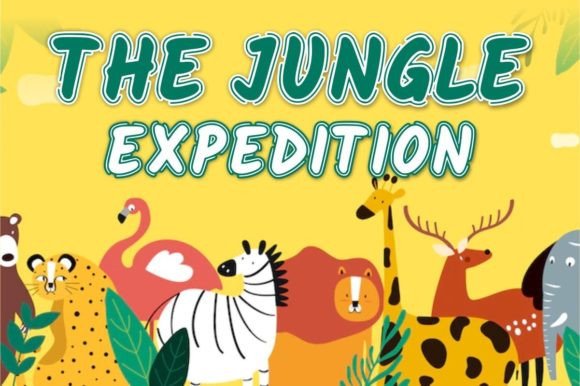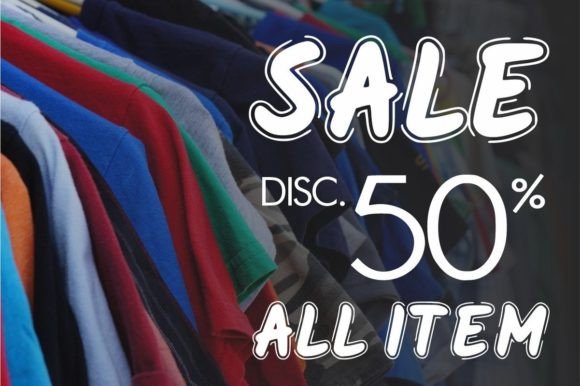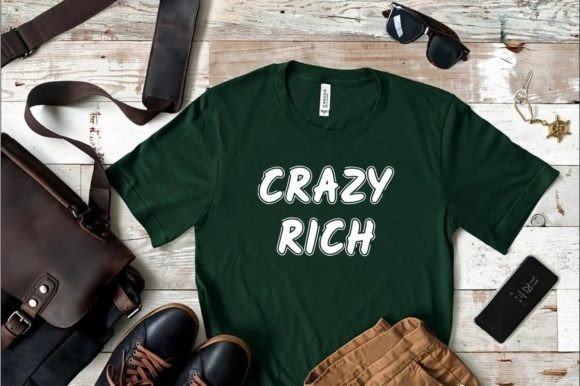
Introducing Funpora Font: The Perfect Choice for Fun and Creative Designs
Are you looking for a font that can add a touch of playfulness and friendliness to your designs? Look no further than Funpora Font! This delightful display font is designed to bring a sense of casual ease and readability to your projects, making it an ideal choice for children’s themed designs, school projects, and so much more.
What Makes Funpora Font So Special?
Funpora Font is a unique and charming typeface that is sure to capture the attention of your audience. Its fun and friendly character makes it perfect for designs that require a lighthearted and approachable feel. Whether you’re working on a project for kids or creating a fun and playful design for a brand, Funpora Font is the perfect choice.
Key Features of Funpora Font
• Easy to Read: Funpora Font is designed to be highly legible, making it easy for readers to quickly understand the text.
• Casual and Friendly: The font has a relaxed and approachable feel, perfect for designs that require a friendly tone.
• Perfect for Kids: Funpora Font is ideal for children’s themed designs, school projects, and other kid-friendly content.
• Limitless Options: With Funpora Font, your design possibilities are endless! Use it for headings, titles, and more to add a touch of fun and playfulness to your work.
How to Use Funpora Font in Your Designs
Funpora Font is incredibly versatile and can be used in a variety of design projects. Here are a few ideas to get you started:
• Children’s Books and Magazines: Add a touch of fun and playfulness to your children’s publications with Funpora Font.
• School Projects: Use Funpora Font to create eye-catching posters, presentations, and reports that kids will love.
• Party Invitations and Decor: Create fun and festive party invitations and decorations with Funpora Font.
• Branding and Advertising: Use Funpora Font to add a playful touch to your brand’s marketing materials and advertisements.
Why Designers and Crafters Love Funpora Font
Funpora Font has quickly become a favorite among designers and crafters due to its unique combination of fun, friendliness, and readability. Here are a few reasons why:
• Unique and Eye-Catching: Funpora Font is a one-of-a-kind typeface that is sure to grab attention and add visual interest to your designs.
• Easy to Pair: Funpora Font pairs well with a variety of other fonts, making it easy to create visually appealing combinations.
• Highly Versatile: Use Funpora Font in a range of design projects, from digital graphics to print materials.
In conclusion, Funpora Font is a fantastic choice for designers and crafters looking to add a touch of fun and playfulness to their designs. With its easy-to-read character, casual and friendly feel, and limitless design possibilities, Funpora Font is the perfect choice for kids’ themed designs, school projects, and more. So why wait? Give Funpora Font a try today and see the difference it can make in your designs!
Get Ready to Have Fun with Funpora Font!